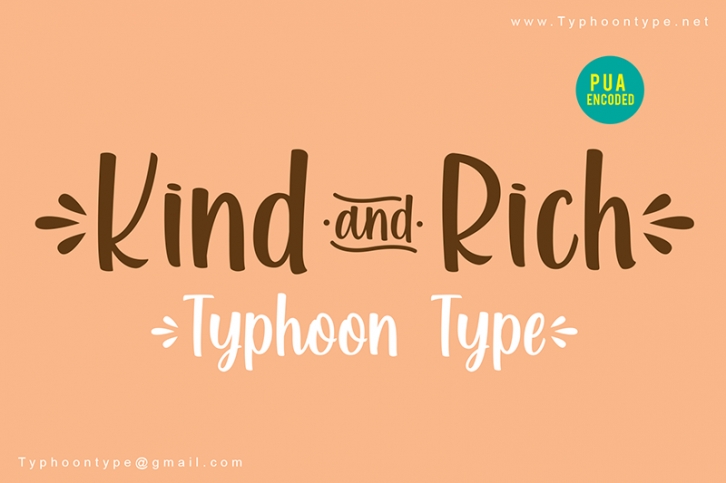
1. Type ( before word to get beginning swash and Type ) after word to get the ending swash.
2. Type > (greater sign) to get small "and"
Example : (Kind>Rich)
How to get " Splash " & Ligature on Kind and Rich font with Illustrator (PUA encoded)